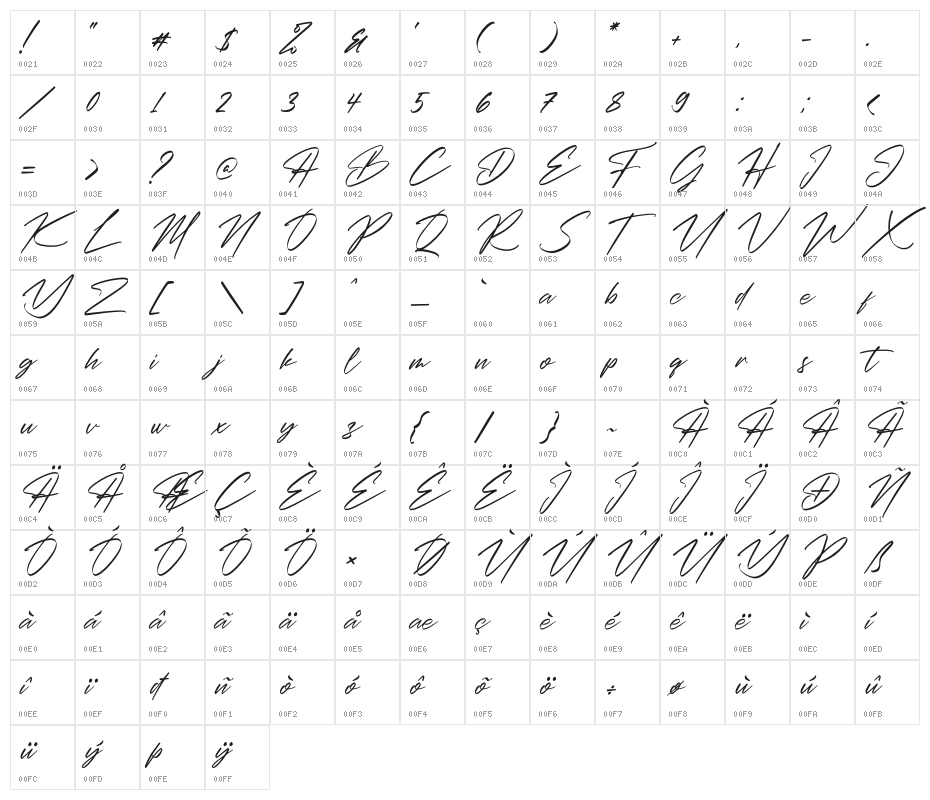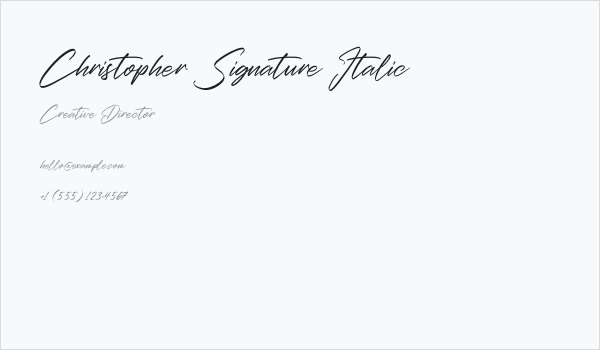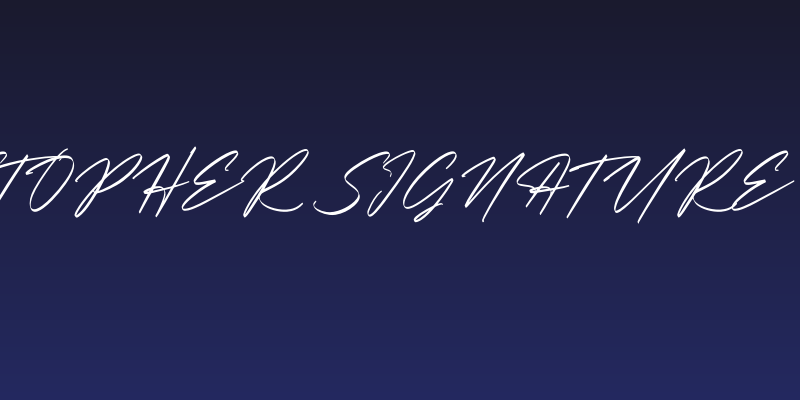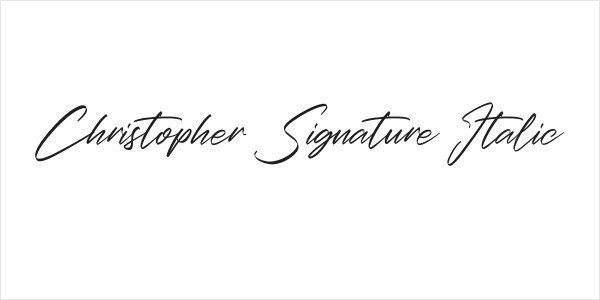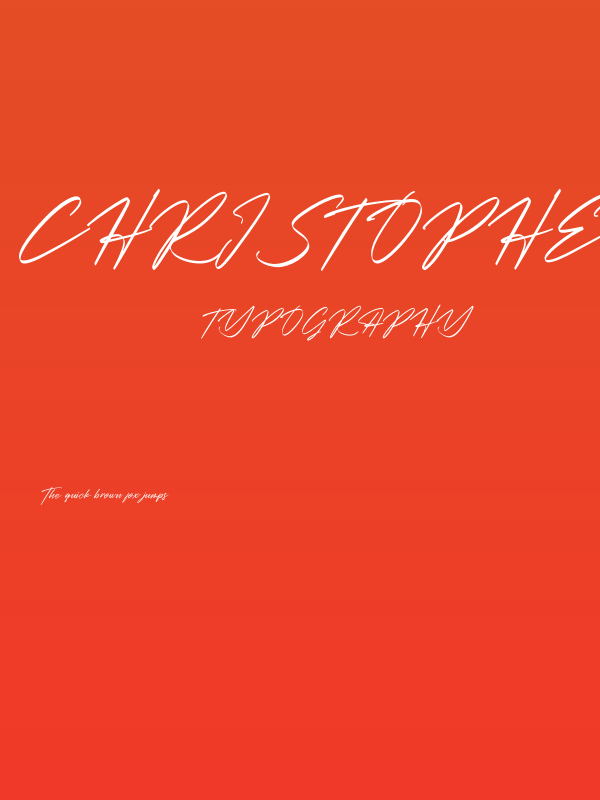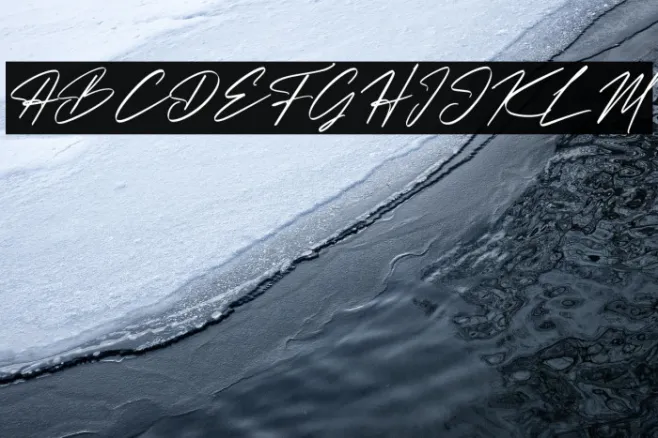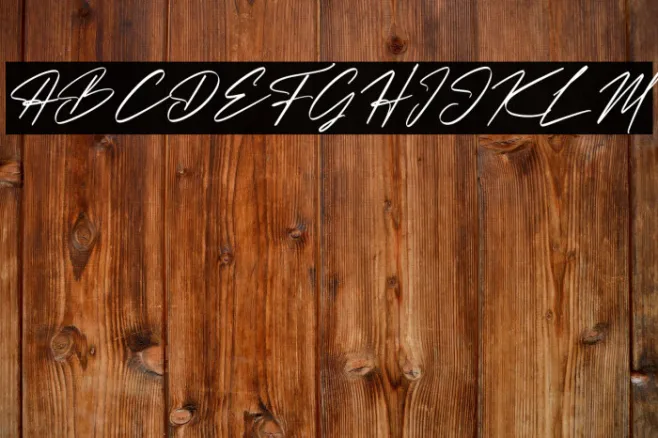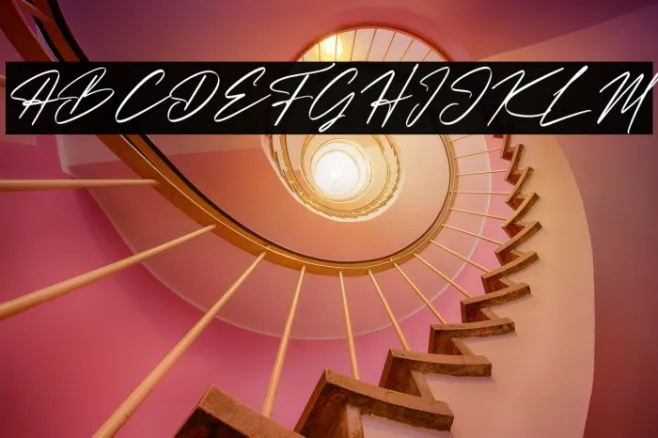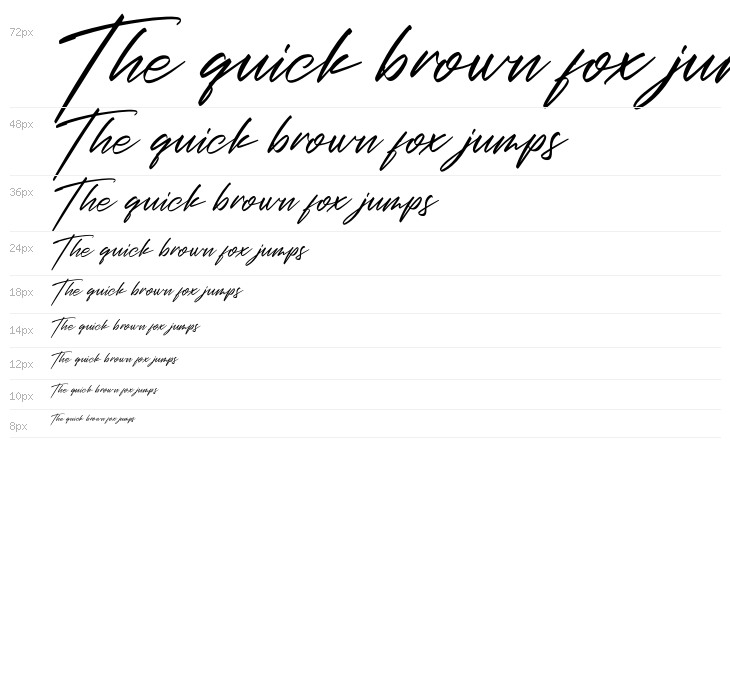
Christopher Signature Italic Font
Christopher Signature Italic Description
This elegant script font exudes a sense of sophistication and fluidity, characterized by its smooth, flowing lines and cursive style. The letters are connected in a seamless manner, giving it a handwritten appearance that is both personal and stylish. The uppercase letters are slightly more elaborate, with graceful loops and swirls, while the lowercase letters maintain a consistent flow. The numerals and special characters are designed to match the overall aesthetic, ensuring a cohesive look across all text. This font is perfect for adding a touch of elegance to any project, whether it be invitations, branding, or personal notes.
| Overall Style | Elegant, Handwritten |
| Use Case | Logos, Invitations, Personal notes |
| Proposed Projects | Ideal for wedding invitations, personal branding, elegant stationery, and artistic projects requiring a personal touch. |